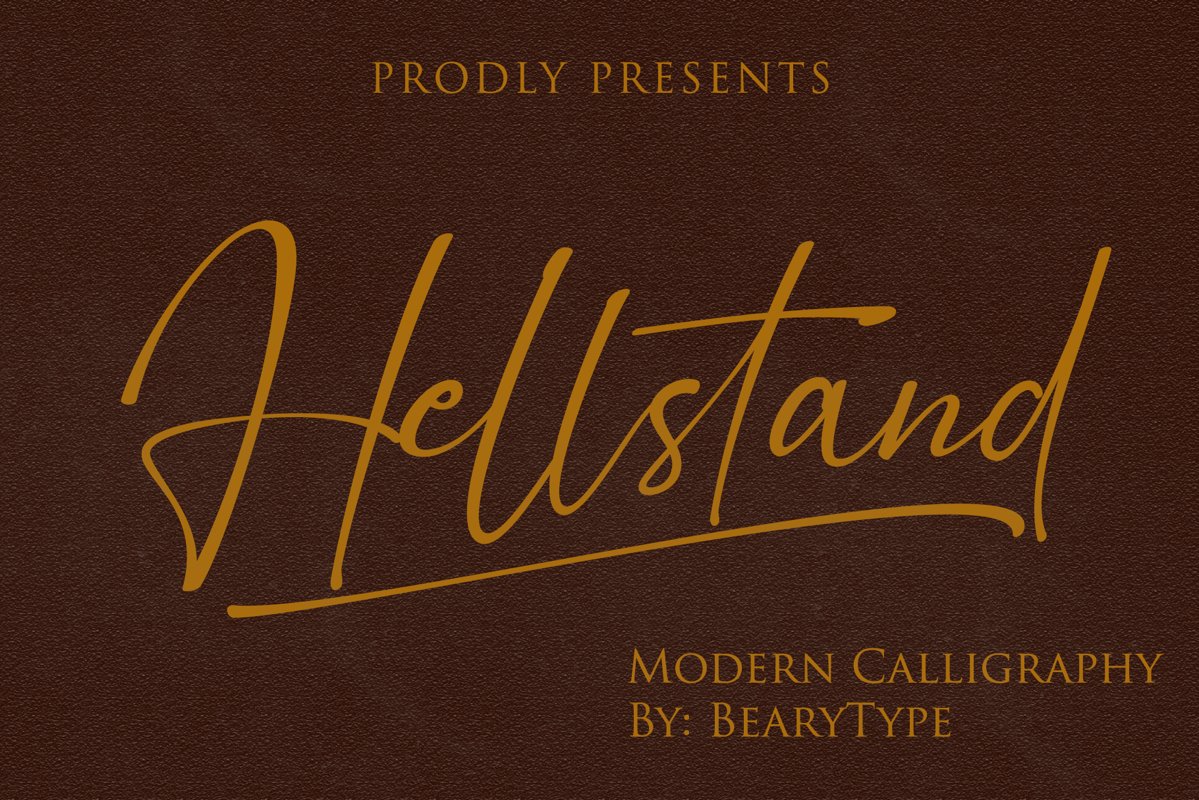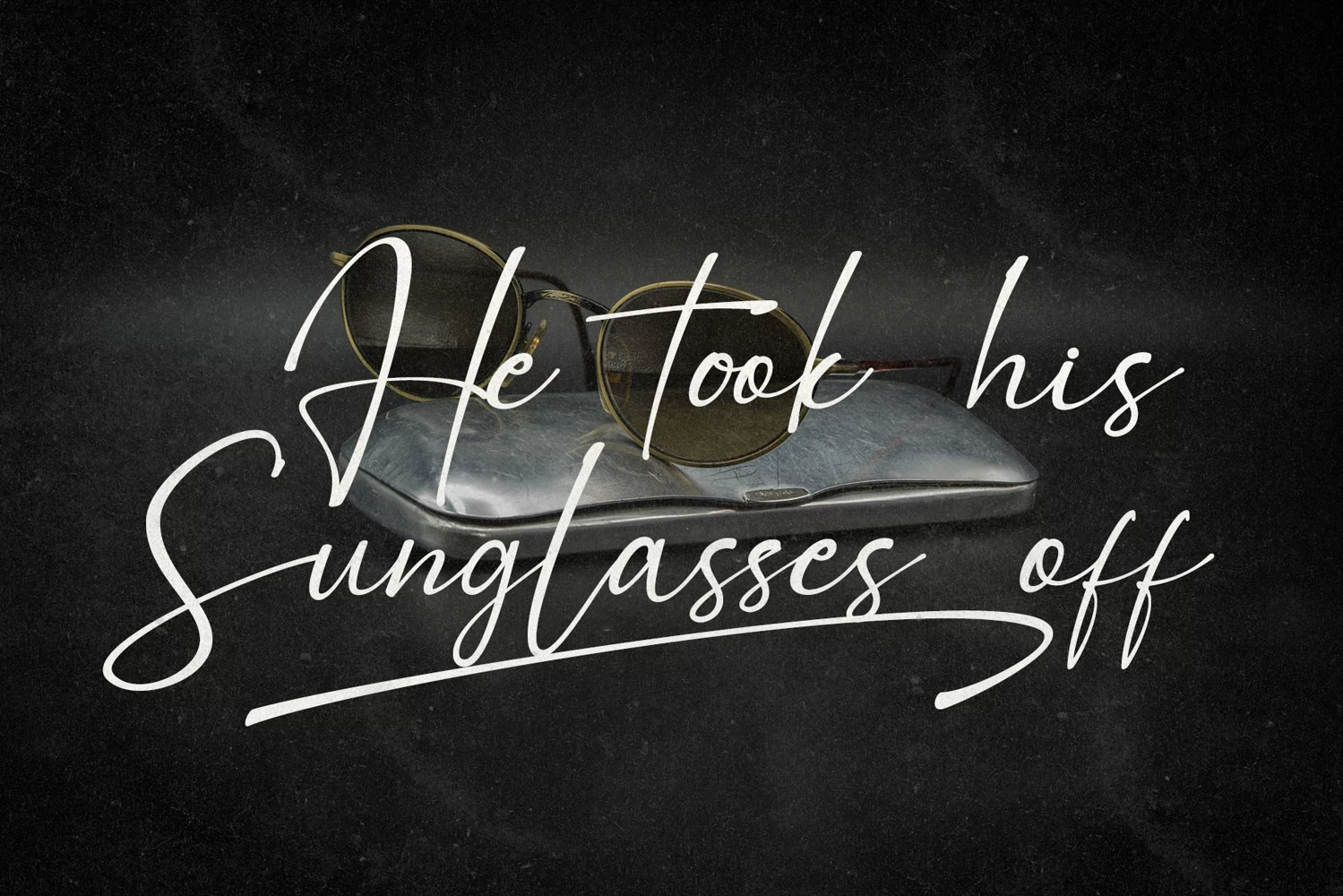
Hellstand is Script style with underline alternate and amazing hand lettering look attractive and natural!
Every single letters have been carefully crafted to make your text looks beautiful.
This font includes 209 glyphs. It has over 60 extended Latin characters for language support.
This font is suitable for invitation, branding, advertising, poster design etc, and also this font is PUA encoded so all characters are accessible via Character Map, Font Book, or the font management program of your choice.
Underline Alternates
Ligature Character
Multilingual Support